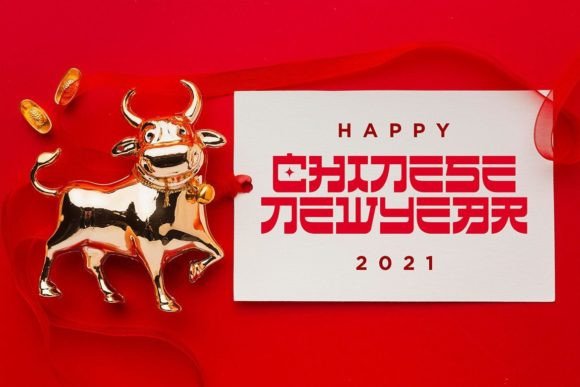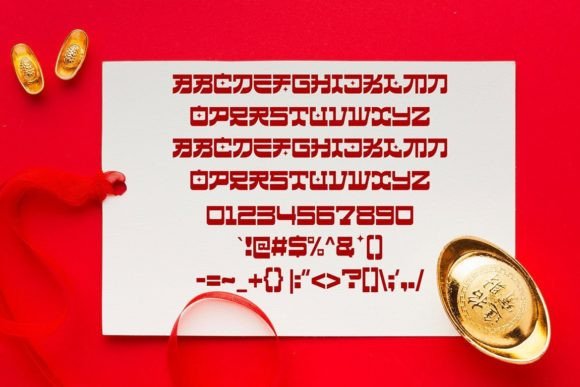
Introduction to Gold China Font
Gold China is inspired by the shape of Chinese letters, crafted in futuristic bold and square.
Perfectly fit for your Chinese New Year projects, Logo, Branding, Restaurant, China Town decoration, Chinese concept, anytime you need an instant vibe of it, Gold China is an easy way to go .
Key Features of Gold China Font
Why Choose Gold China Font?
Gold China Font offers exceptional quality and versatility, making it a valuable addition to your design toolkit. Whether you’re creating for personal projects or commercial use, Gold China Font delivers professional results.